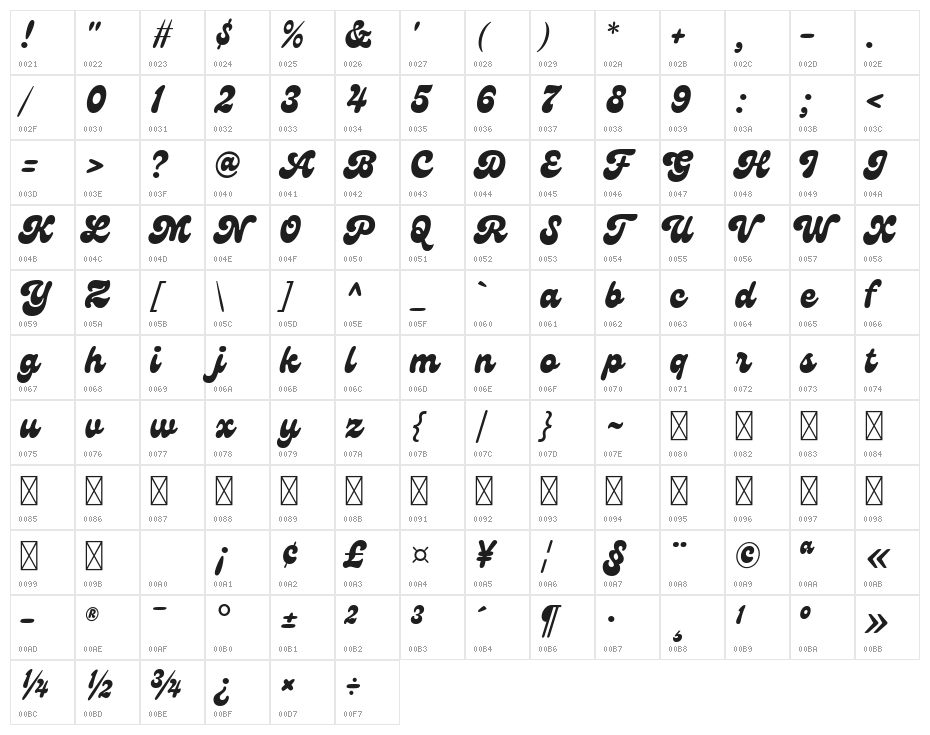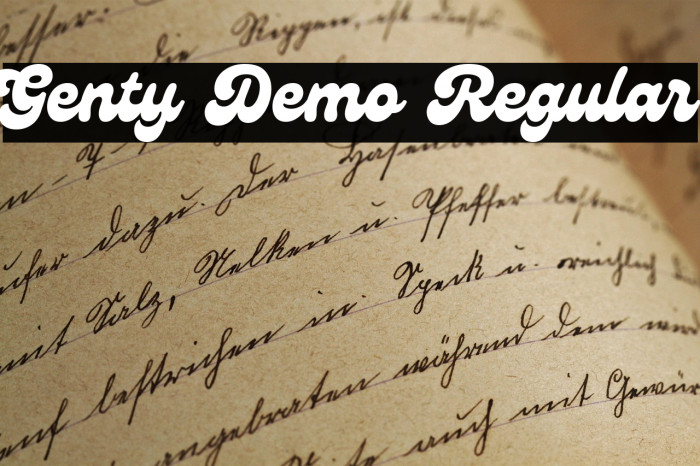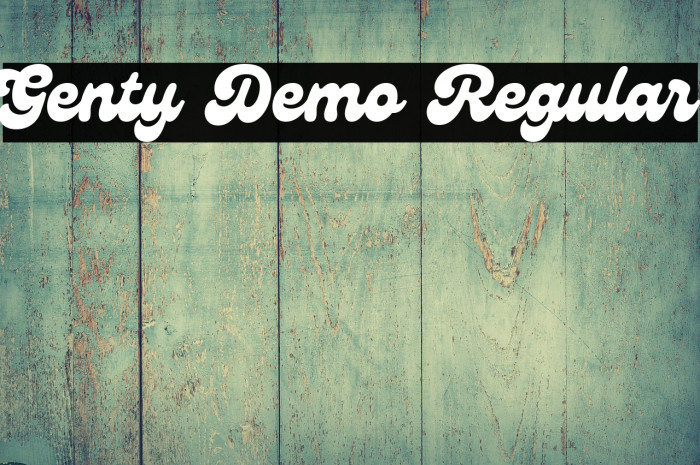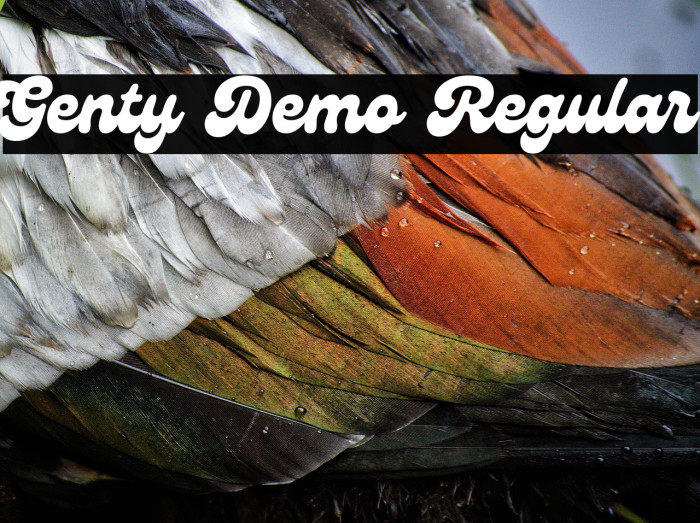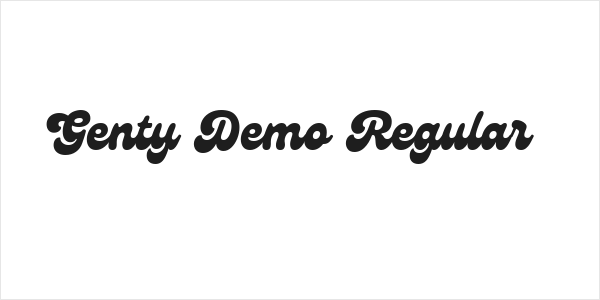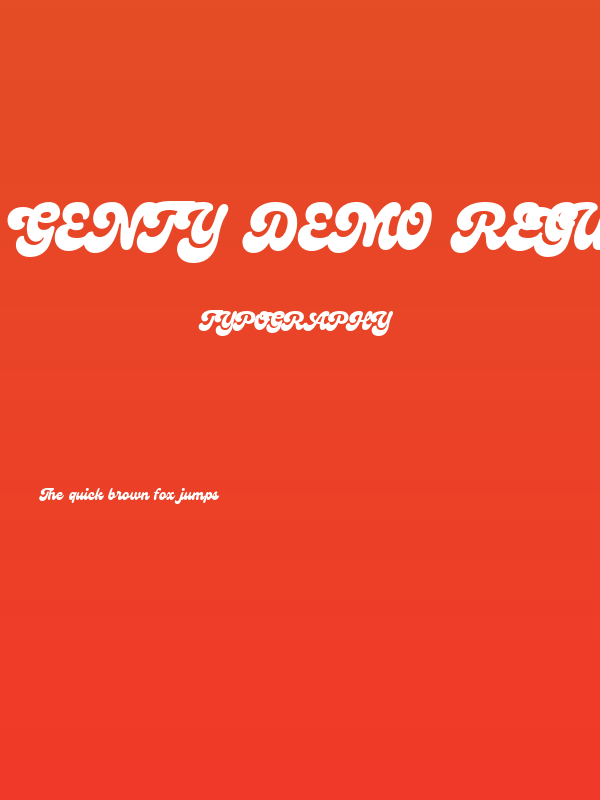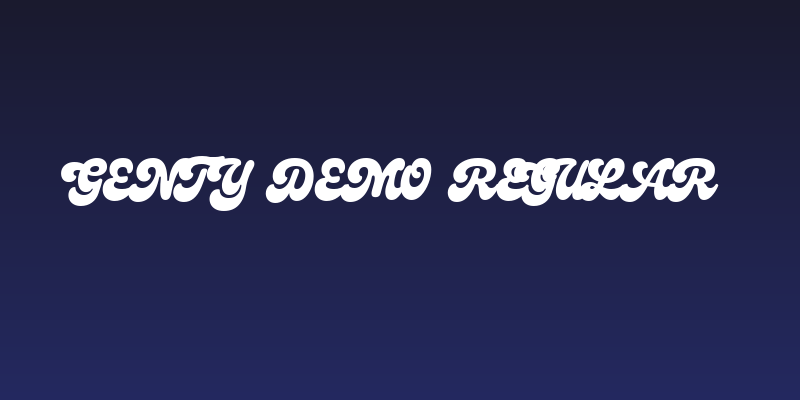
Genty Demo Regular Font
Genty Demo Regular Description
This font features a bold, cursive style with a playful and energetic appearance. The letters are interconnected, creating a fluid and continuous flow. The strokes are thick and rounded, giving it a friendly and approachable feel. The uppercase and lowercase letters maintain a consistent style, while the numbers and special characters complement the overall design. The font's boldness makes it stand out, making it suitable for attention-grabbing designs.
| Use Case | Logos, Headlines, Branding |
| Proposed Projects | Ideal for branding, logos, headlines, and playful design projects. |